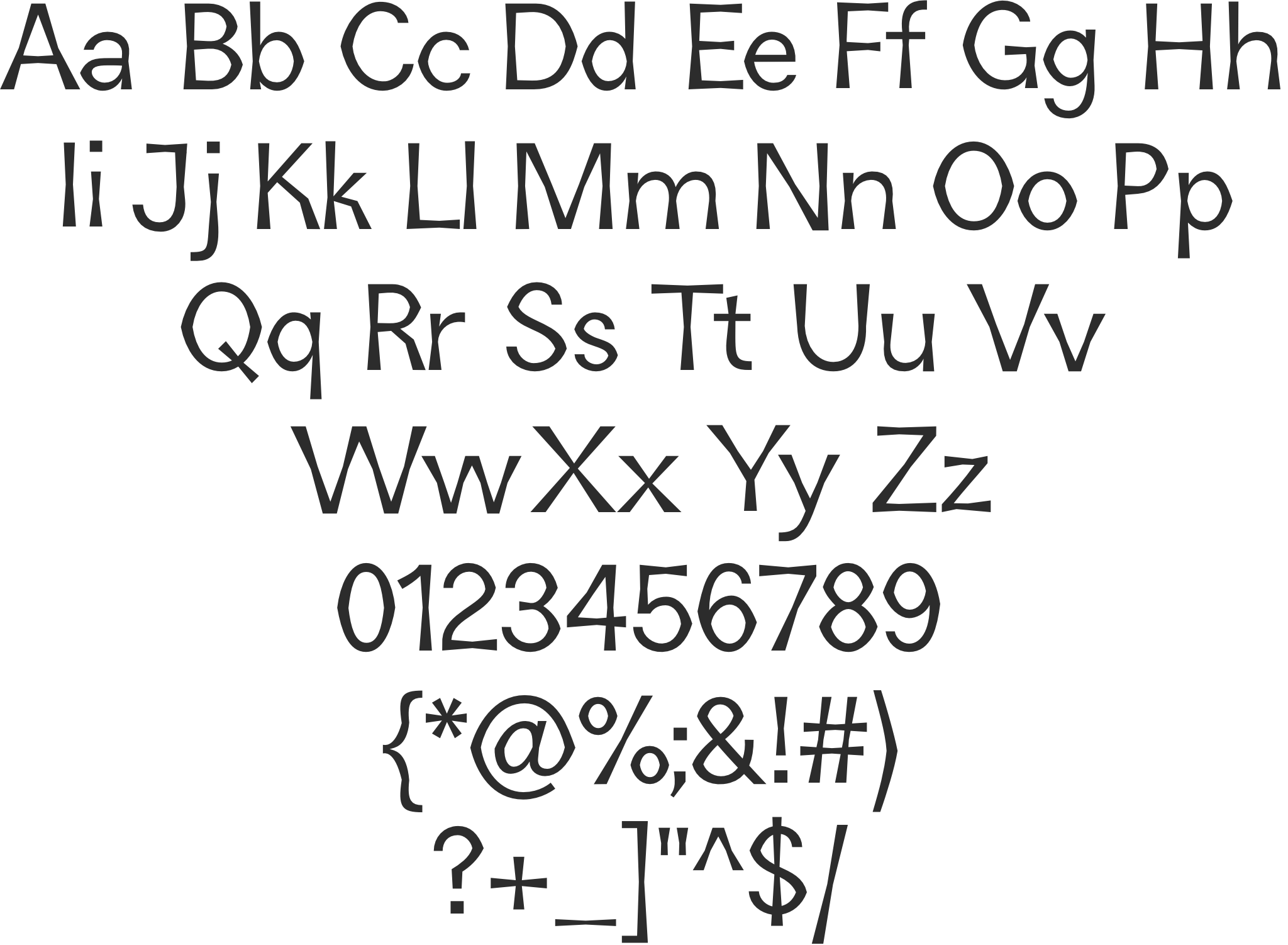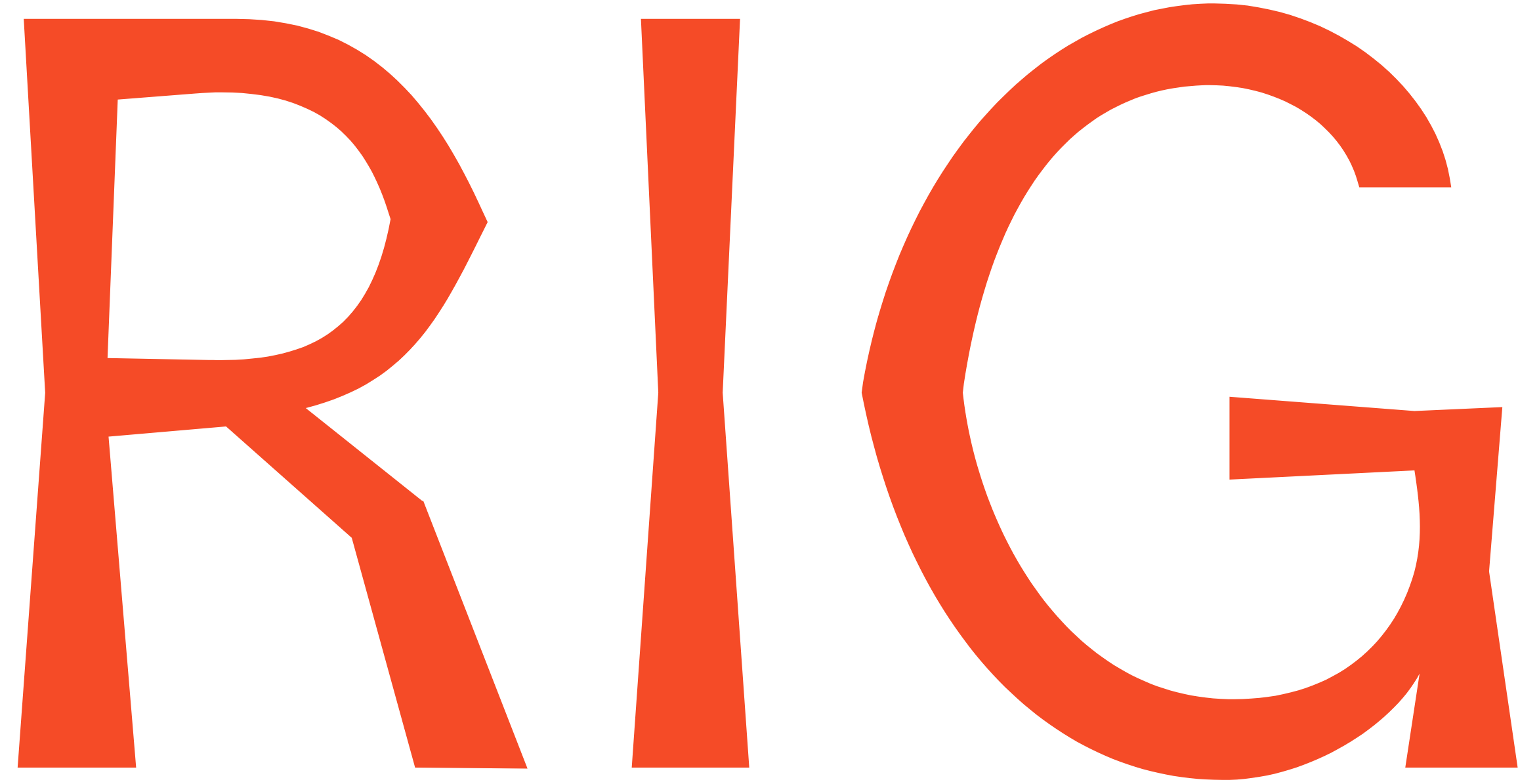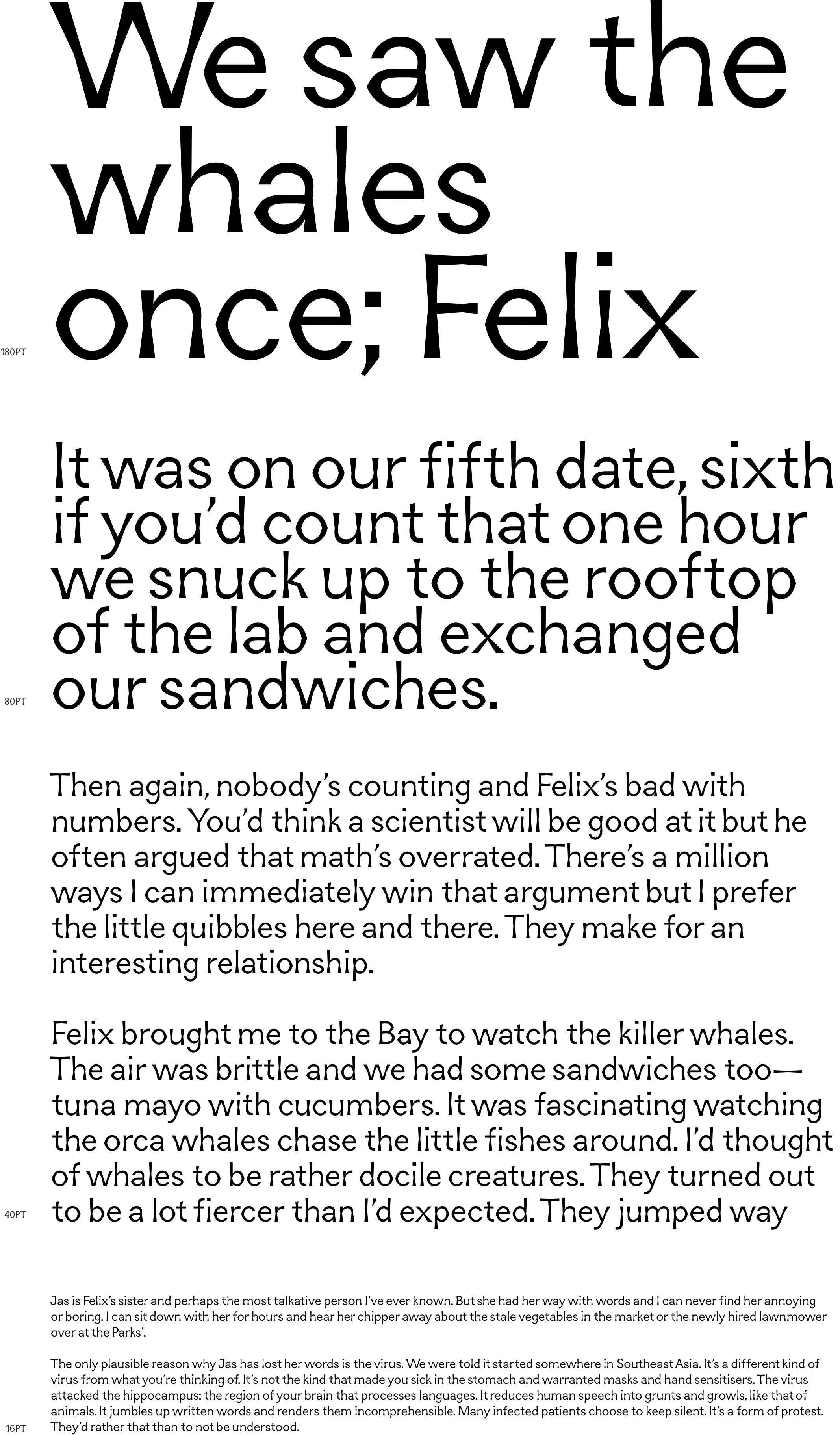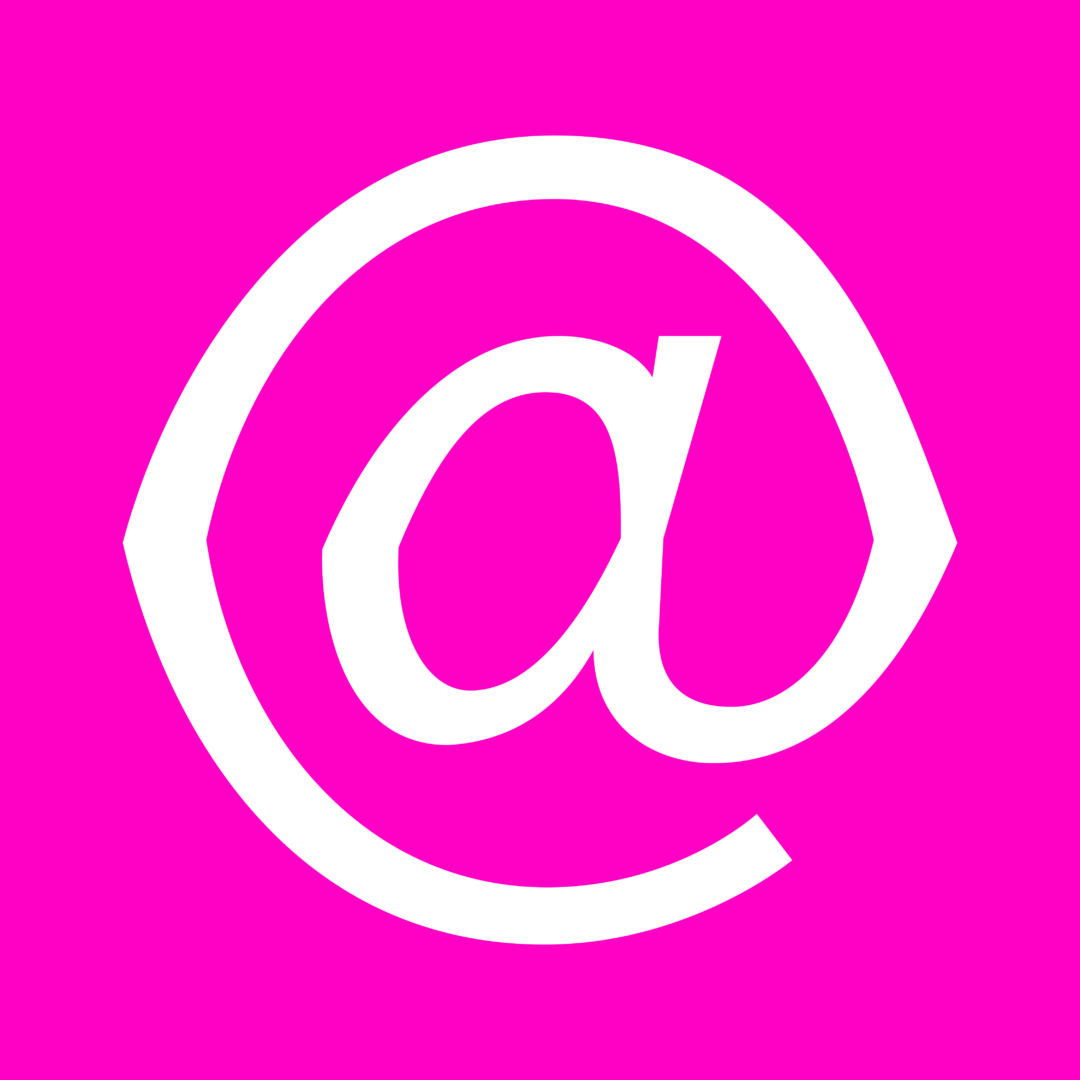
Rounded counters taper into sharp geometric points
Inspired by bell bottom jeans, typeface features flared stems
The san’s flared strokes creates a unique optical effect